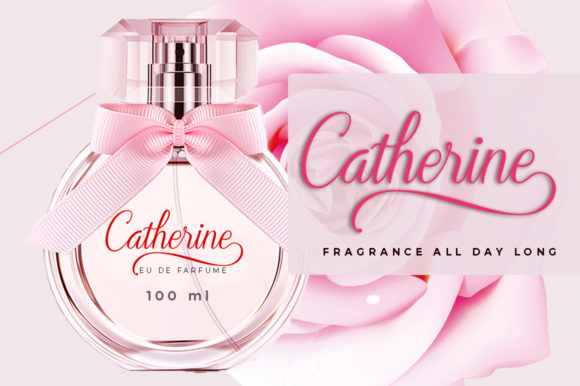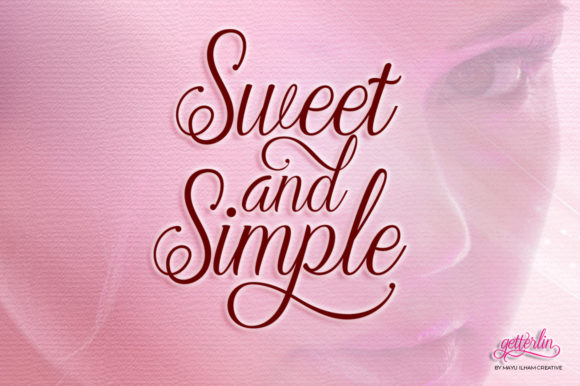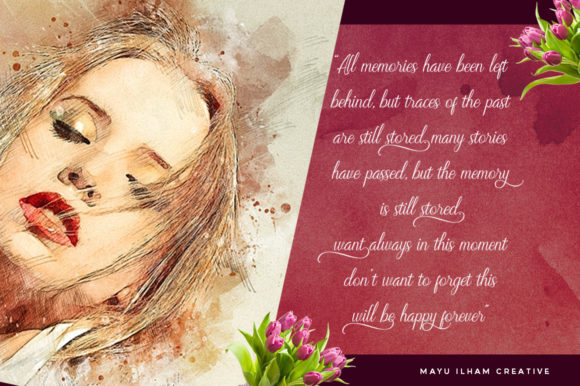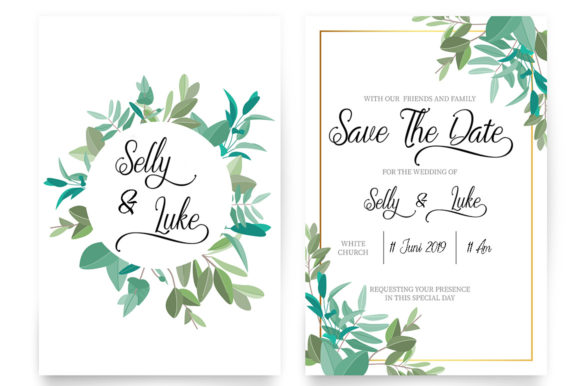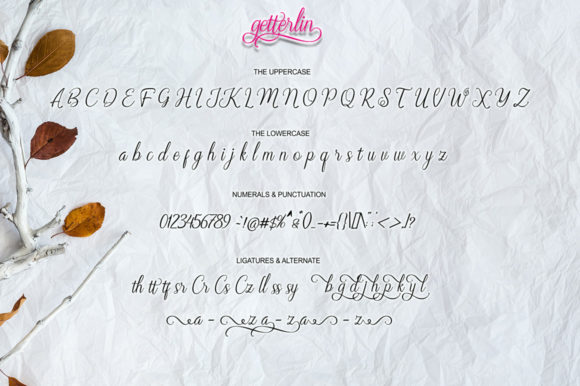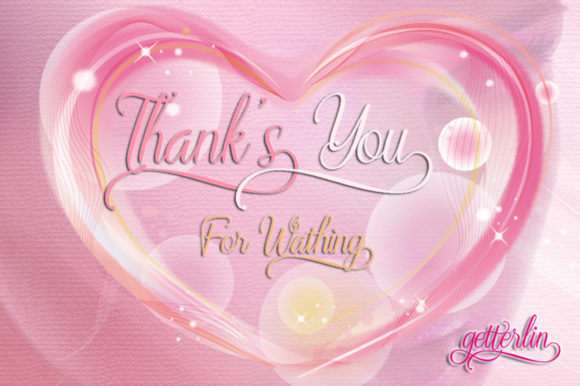
Introducing Getterlin Font: Elevate Your Designs with Modern Calligraphy
In the world of typography, few fonts manage to capture the essence of elegance and sophistication as effectively as the Getterlin Font. This modern calligraphy font has been making waves among designers and crafters alike, and for good reason. With its varied baseline and fluid strokes, Getterlin brings a classic touch to any design, making it perfect for a wide range of applications.
What is Getterlin Font?
The Getterlin Font is a contemporary take on traditional calligraphy, designed to add a touch of luxury and refinement to your projects. Its unique varied baseline gives it a distinctive, hand-crafted feel that sets it apart from more uniform fonts. This characteristic makes Getterlin incredibly versatile, suitable for both digital and print designs.
Key Features of Getterlin Font
- Modern Calligraphy Style: Getterlin embodies the elegance of modern calligraphy, making it ideal for designs that require a sophisticated look.
- Varied Baseline: The font’s varied baseline adds a dynamic, organic feel to your text, giving it a personal and handcrafted appearance.
- High Versatility: From titles and signatures to logos, wedding invitations, and more, Getterlin can be used across a multitude of design projects.
- Elegant and Classic Look: The font’s design ensures that your designs exude a classic and elegant vibe, perfect for luxury brands, wedding designs, and high-end products.
Use Cases for Getterlin Font
The possibilities are endless with Getterlin. Here are some of the top use cases where this font truly shines:
- Wedding Invitations and Stationery: Add a touch of elegance to your wedding invites, thank you cards, and other stationery with Getterlin’s beautiful calligraphy.
- Logos and Branding: Elevate your brand with a sophisticated logo that uses Getterlin Font, perfect for luxury brands, boutiques, and high-end services.
- T-Shirts and Merchandise: Create stunning apparel and merchandise with Getterlin, making your designs stand out with its unique calligraphy style.
- Signboards and Posters: Use Getterlin to create eye-catching signboards and posters that draw attention with its elegant and classic look.
- Digital and Print Media: Whether it’s for a magazine cover, a website header, or a business card, Getterlin brings a level of sophistication to any media.
Why Choose Getterlin Font?
In a sea of fonts, Getterlin stands out for several reasons:
- Unique Style: Its modern calligraphy style and varied baseline offer a fresh alternative to traditional fonts.
- Ease of Use: Designed to be user-friendly, Getterlin can be easily integrated into various design projects, regardless of the software you’re using.
- Customization: The font’s versatility allows for a high degree of customization, enabling designers to tailor it to their specific needs.
Tips for Using Getterlin Font Effectively
To get the most out of Getterlin, consider the following tips:
- Pair with Complementary Fonts: Use Getterlin in combination with simpler fonts to create contrast and highlight key information.
- Adjust Size and Color: Experiment with different sizes and colors to make your text pop and to evoke the desired emotion.
- Consider the Context: Ensure that the elegance of Getterlin aligns with the overall theme and message of your design.
The Getterlin Font is a powerful tool for designers and crafters looking to add a touch of elegance and sophistication to their projects. Its modern calligraphy style, combined with its varied baseline, makes it a versatile and beautiful choice for a wide range of applications. Whether you’re working on wedding invitations, logos, or digital media, Getterlin is sure to elevate your designs to new heights. Explore the possibilities of Getterlin Font today and discover how it can transform your creative projects.